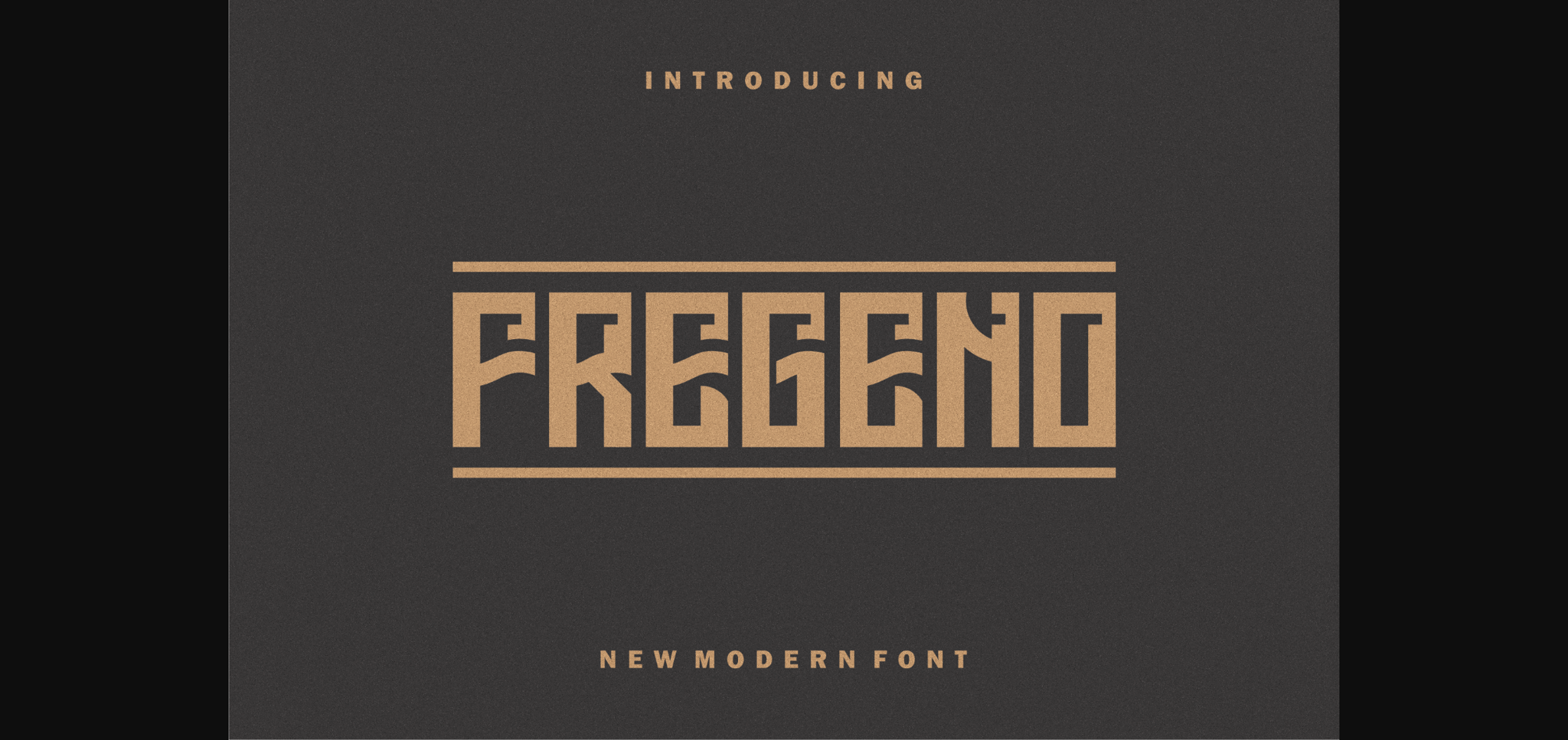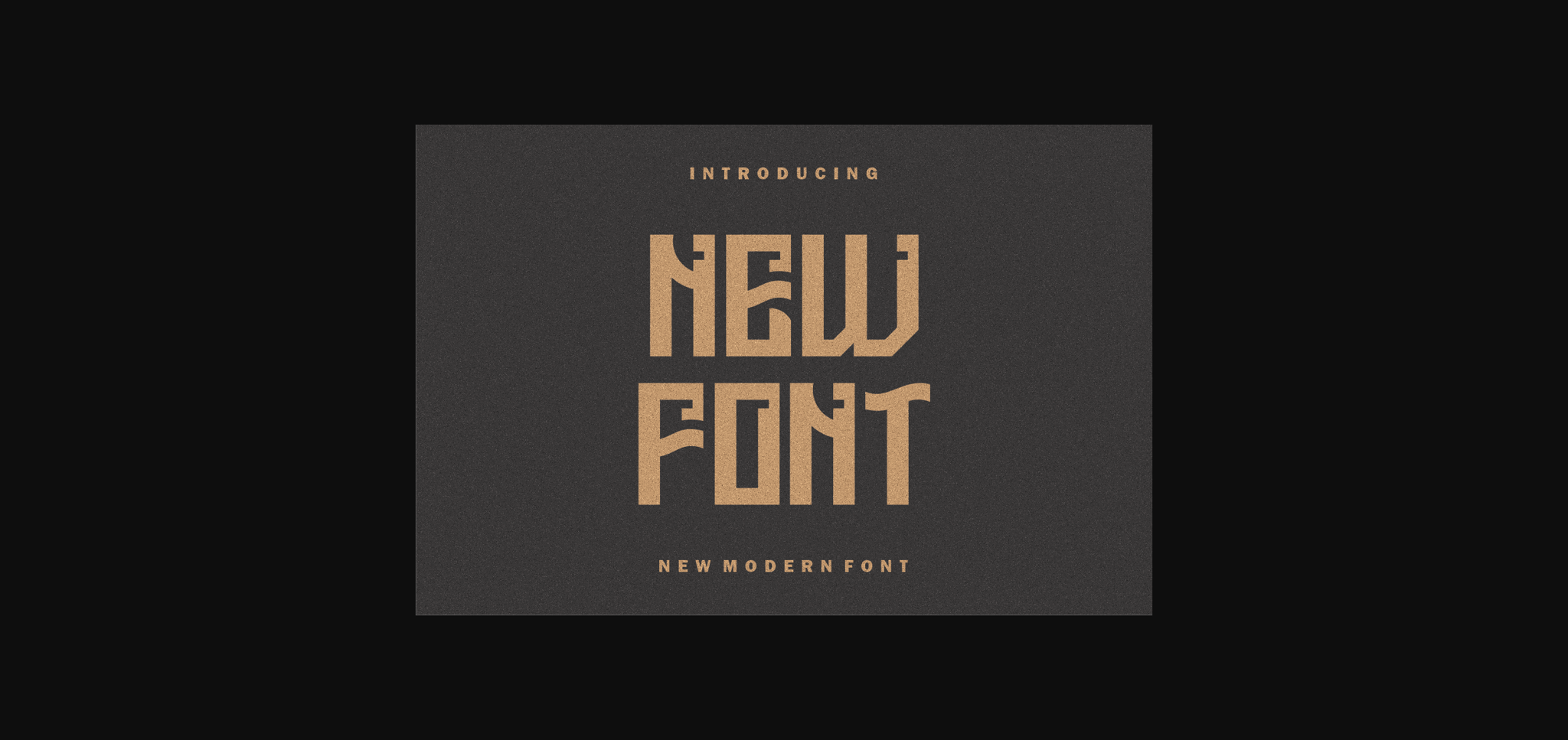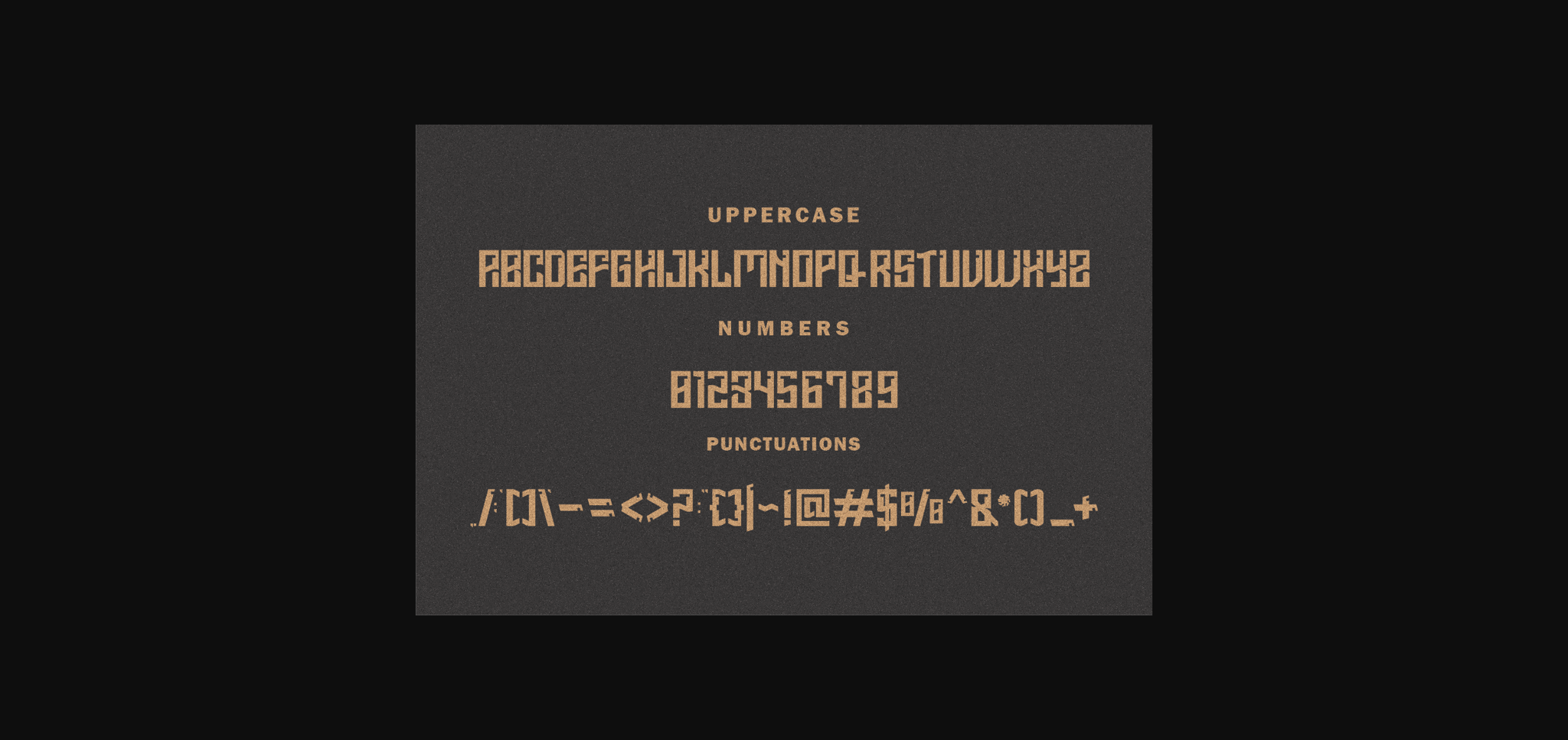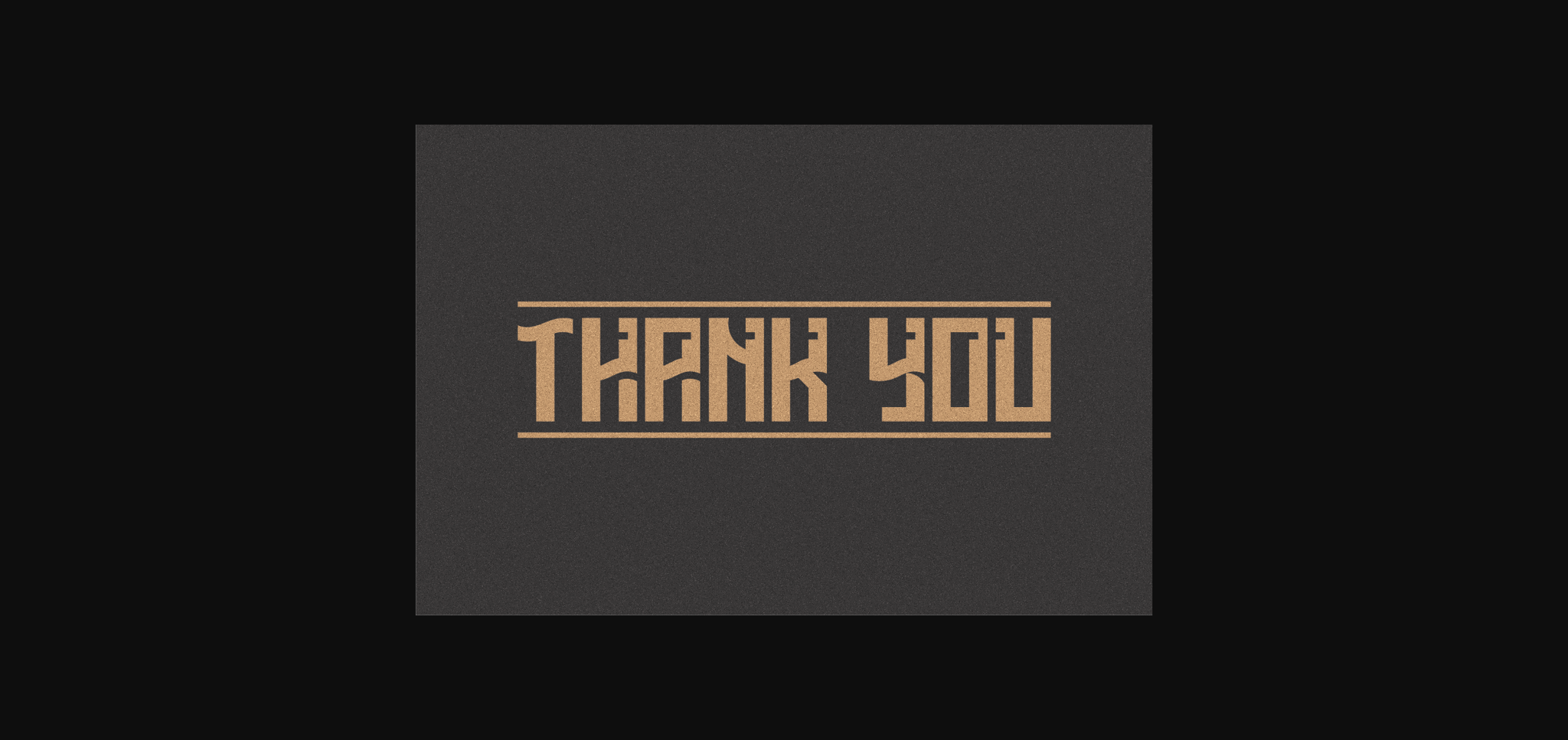
Fregeno Font
About Fregeno Font
Fregeno is a modern sans serif font that feels beautiful, classy, elegant, and modern. This font is perfectly suited for a wide variety of projects, such as signature, stationery, logo, wedding, typography quotes, magazine or book cover, website header, clothing, branding, packaging design, and more.